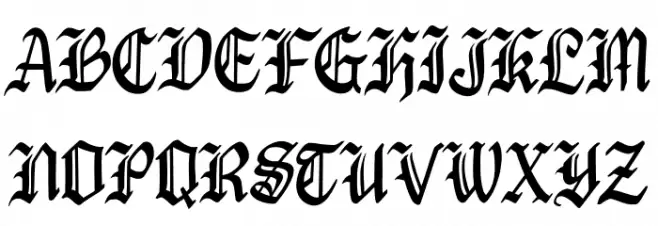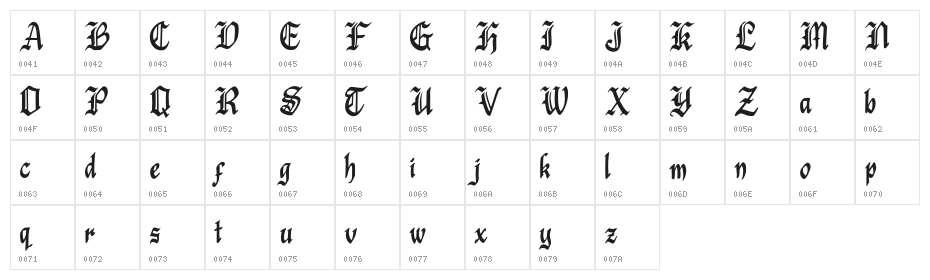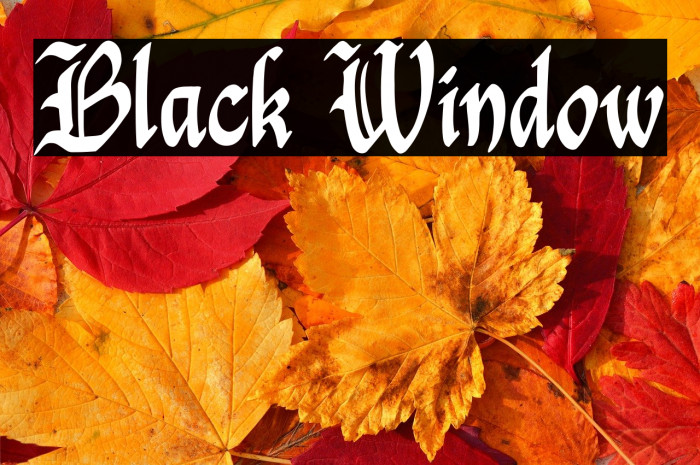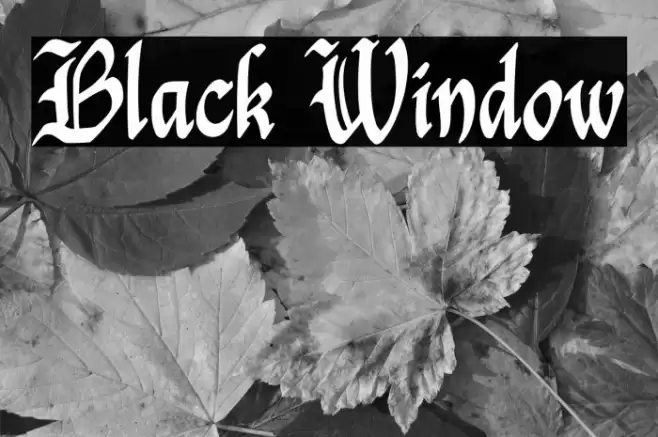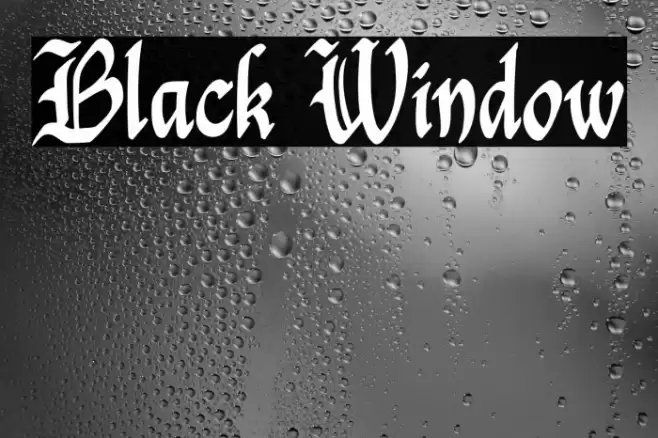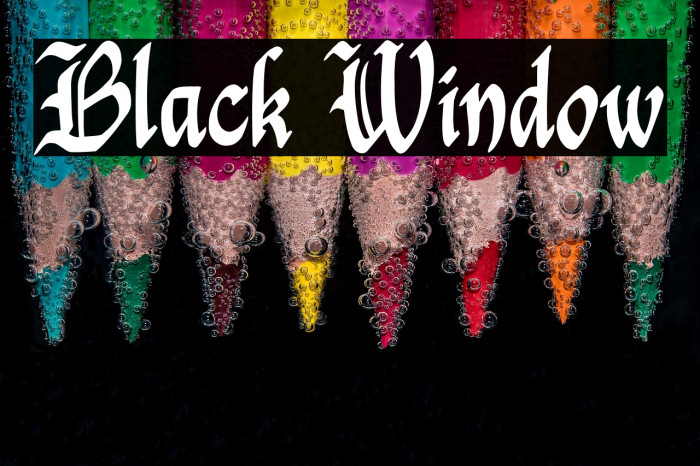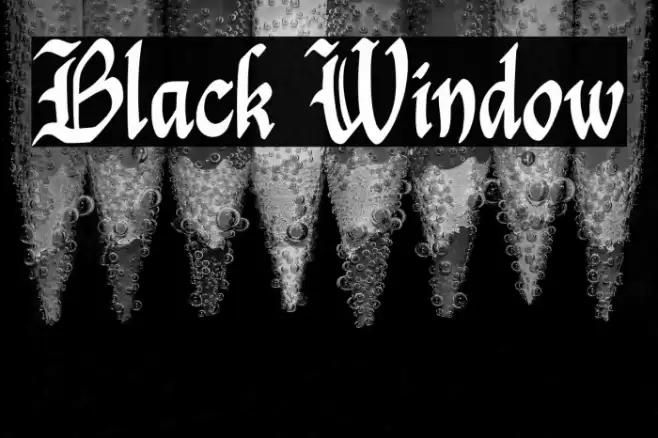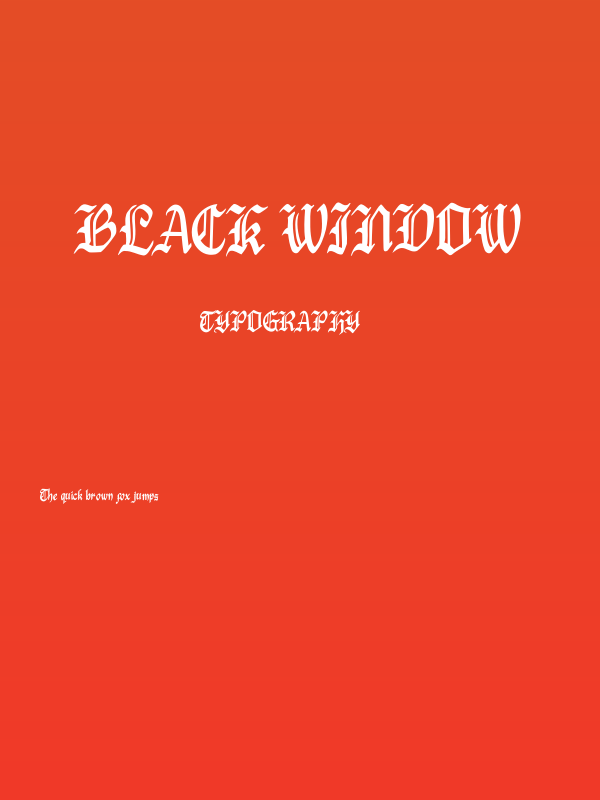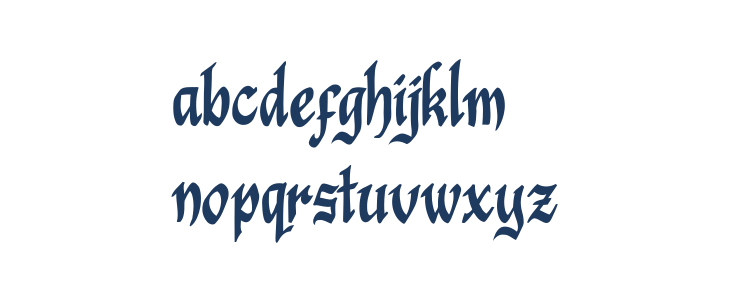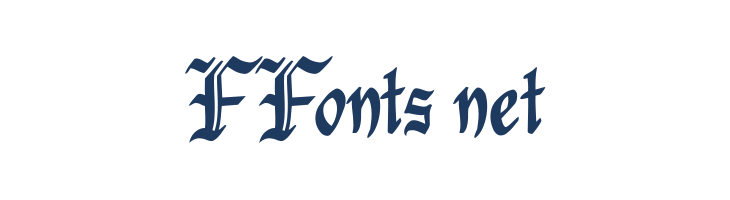
Black Window Font
Black Window Description
This font is a striking example of Blackletter style, characterized by its intricate and ornate design. The letters exhibit sharp, angular lines with dramatic flourishes, reminiscent of medieval script. The uppercase letters are bold and commanding, while the lowercase letters maintain a consistent style with slightly less ornamentation. The overall appearance is both historical and authoritative, making it ideal for projects that require a touch of elegance and tradition. The font's unique style is perfect for creating a sense of grandeur and formality.